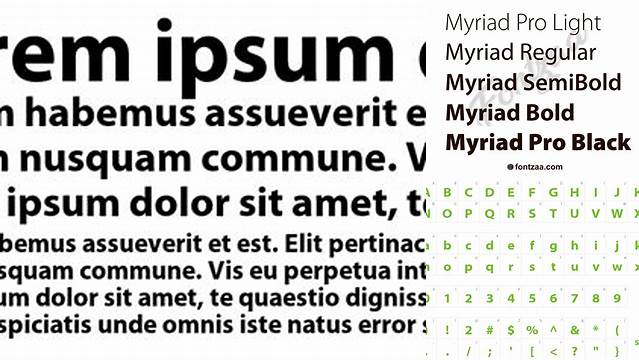
Hey guys, ever found yourself drooling over a font that just screams professionalism, readability, and modern flair? Chances are, you've probably stumbled upon Myriad Pro-Bold. It's one of those fonts that just gets design. Today, we're diving deep into the world of Myriad Pro-Bold font free download and everything you need to know about getting your hands on this fantastic typeface. We'll cover its history, its uses, and crucially, how to navigate the waters of legality and safety when you're looking for a free version. So, buckle up, because we're about to make your design life a whole lot easier!
Understanding Myriad Pro-Bold: What Makes It Special?
When we talk about Myriad Pro-Bold font free download, it’s important to first grasp what makes this particular typeface a standout in the crowded world of fonts. Myriad Pro-Bold, part of the larger Myriad family, is a sans-serif typeface designed by Robert Slimbach and Carol Twombly for Adobe Systems. What really sets it apart, guys, is its incredible versatility and its almost invisible perfection. It doesn't shout for attention; instead, it provides a clean, clear, and highly legible foundation for any design project. The 'Bold' weight, specifically, offers a robust presence without being overly heavy or clunky, making it perfect for headlines, subheadings, and emphasizing key information. Its open forms and humanistic characteristics give it a friendly yet authoritative feel, which is a rare balance to strike. Think about all those big tech companies or universities – many have relied on Myriad Pro (or something very similar) for their branding, and there’s a good reason for that. It’s professional, adaptable, and projects an image of competence and approachability. The spacing, known as kerning and tracking, is also meticulously crafted, ensuring that letters flow together beautifully, even at different sizes. This attention to detail is what elevates Myriad Pro-Bold above many generic sans-serifs, making it a go-to choice for designers who truly understand typography. Its extensive character set also supports multiple languages, adding to its global appeal and practical utility. For anyone considering a Myriad Pro-Bold font free download, understanding these core attributes will help you appreciate the quality you're bringing into your projects. It’s not just a font; it’s a design cornerstone.
The History Behind Myriad Pro-Bold Font
Exploring the origins of Myriad Pro-Bold font free download takes us back to the early 1990s, a pivotal time in digital typography. Myriad was originally released by Adobe in 1992, making it one of the first multi-master fonts, a revolutionary technology back then that allowed designers to generate custom weights and widths. The 'Pro' in Myriad Pro signifies a later, expanded version that came out around 2000, which added OpenType features, expanded character sets to support more languages, and included additional weights and styles. This expansion transformed Myriad from a great font into an indispensable one for many global design projects. The original designers, Robert Slimbach and Carol Twombly, are legendary figures in type design, known for their meticulous craftsmanship and ability to blend traditional typographic principles with modern digital demands. Myriad was specifically designed to be highly readable across various media, from print to screen, and to offer a wide range of weights and styles that work cohesively together. The Bold weight, in particular, was crafted to provide strong emphasis and impact without losing the underlying warmth and clarity of the Myriad family. It draws inspiration from humanist sans-serifs, which are characterized by their calligraphic influences and more organic shapes, differing from the purely geometric sans-serifs that often feel colder. This historical context is crucial, guys, because it explains why Myriad Pro-Bold feels so polished and versatile today. It wasn't just thrown together; it was a thoughtfully engineered typeface designed to address the complex needs of modern communication. So, when you're looking for a Myriad Pro-Bold font free download, remember you're tapping into a rich legacy of typographic innovation and design excellence.
Why Choose Myriad Pro-Bold for Your Designs?
So, you’re thinking about a Myriad Pro-Bold font free download – but why this specific font over countless others? Well, let me tell you, there are some compelling reasons. First off, Myriad Pro-Bold boasts exceptional readability. Its open letterforms and balanced proportions mean that text set in this font is incredibly easy on the eyes, whether you're reading a headline, a subheading, or a short block of impactful copy. This makes it a fantastic choice for everything from website navigation to corporate presentations and even signage where clarity is paramount. Secondly, its versatility is practically unmatched. While we're talking about the bold weight here, the entire Myriad Pro family is known for its ability to adapt to almost any design context. The bold specifically can add a punch of authority without feeling aggressive or overly dominating, making your key messages stand out effectively. It projects a sense of modern professionalism, which is highly sought after by businesses, educational institutions, and creative agencies alike. This isn't a trendy font that will look dated in a year; it has a timeless quality that ensures your designs remain fresh and relevant for a long time. Furthermore, its extensive character set, including support for numerous languages and special characters, means you won't hit a wall when expanding your projects internationally. Designers often gravitate towards Myriad Pro-Bold because it's a reliable workhorse – it simply works. It complements other fonts beautifully, providing a solid foundation or a strong accent depending on your needs. For anyone looking to elevate their design game with a font that combines elegance, legibility, and modern appeal, seeking a Myriad Pro-Bold font free download is a no-brainer. It’s a choice that reflects good taste and a keen understanding of effective visual communication.